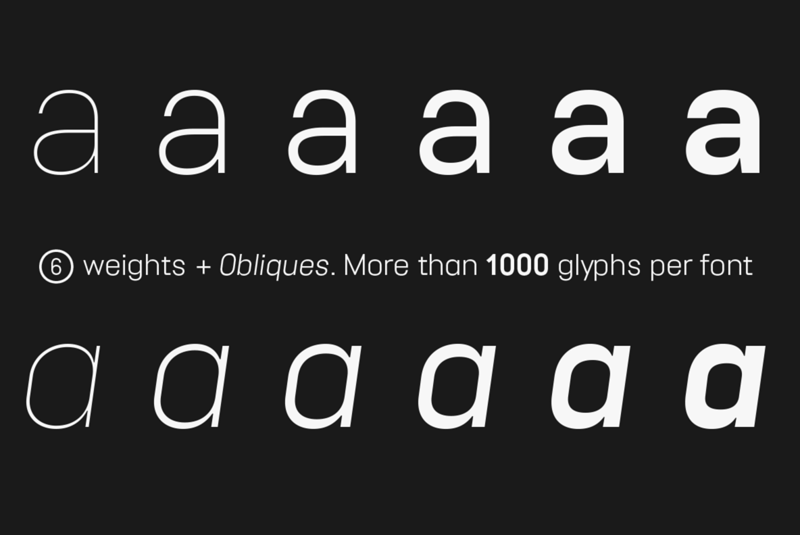
Unione Extra Light DEMO VERSION Unione by TOMO FONTS is a clean and modern sans-serif type family with a geometric touch. Available in six weights (sharp and rounded) and with their corresponding obliques. A family of 28 members, with more than 1000 glyphs per font! The family has a wide range of language support, including Latin Plus & Cyrillic. Check out the interesting stylistic alternates Unione has for you. Key Features: � Geometric and modern Sans-Serif � 28 styles � 1000 glyphs per font. � Latin Plus support, Extended Latin � Cyrillic support, Basic & Extended � Fractions � Circled Numerals & Letters � Lots of Stylistic Alternates If you are interested in commercial usage and full family, please buy Unione Complete Family here: https://www.myfonts.com/fonts/tomo/unione/ WWW.TOMOFONTS.COM INSTAGRAM.COM/TOMO.FONTS |